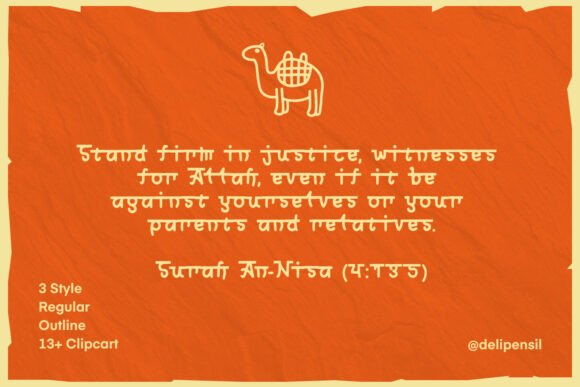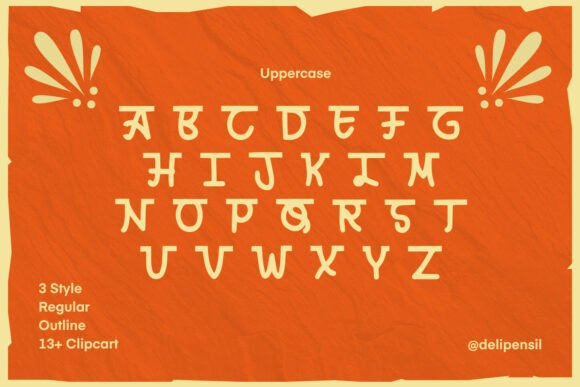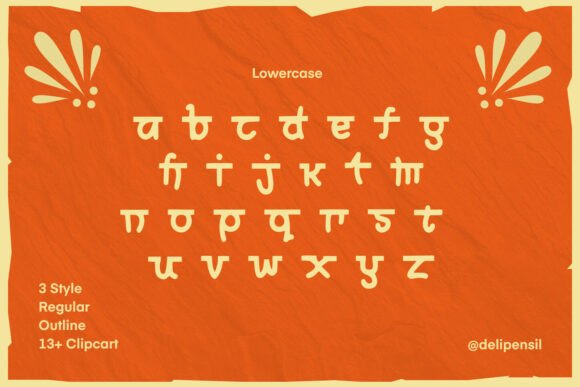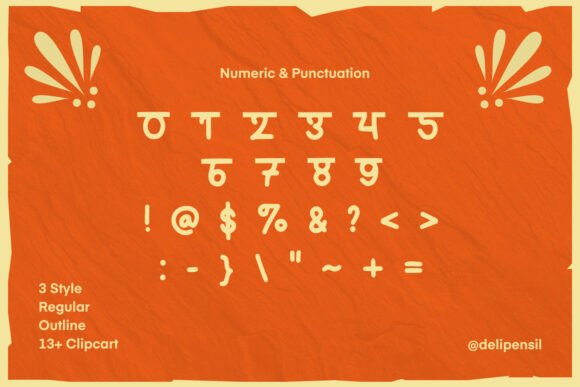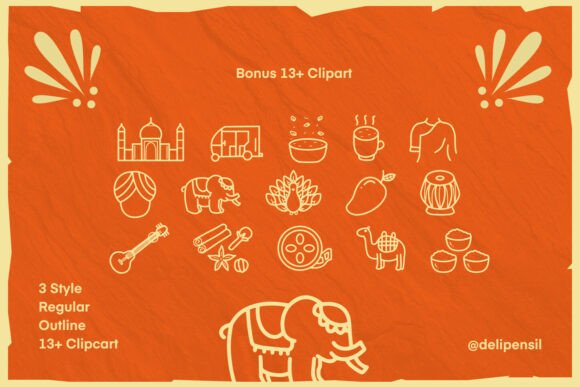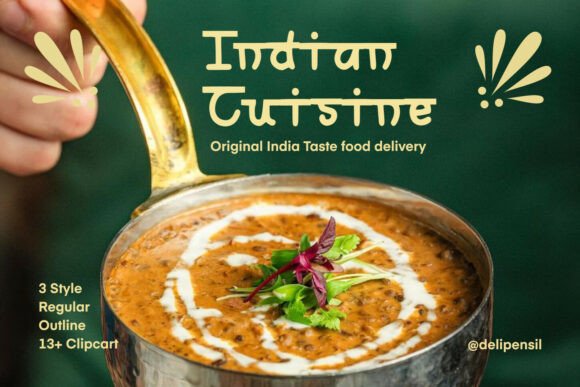
✨ Discover the Delightful Hida Font: A Playful Hindi-Style Font for Creative Designs
Introduction to Hida Font
Bring a touch of culture and creativity to your designs with Hida, a unique Hindi-inspired font! Perfect for branding, posters, invitations, packaging, and social media graphics, Hida gives your work a playful yet authentic vibe. The font comes with two main styles:
- Hida Regular – clean and perfect for headlines
- Hida Outline – a stylish outlined version for modern, trendy looks
Honest Review: What I Love and What to Consider
- ✨ Unique and authentic Hindi-inspired design
- ✅ Easy to read and versatile for various design projects
- 🎉 Fun and playful vibe that’s perfect for creative designs
- 🤔 Limited language support (primarily designed for Hindi and similar languages)
- ⚠️ May require adjustments for use in non-design contexts, such as presentations or documents
The Designer Inspiration Behind Hida Font
The Hida font was crafted with love and care by a designer who wanted to bring a touch of Indian culture to the digital world. Inspired by traditional Hindi typography, the designer aimed to create a font that’s both authentic and fun to use. The result is a unique font that adds a playful yet sophisticated touch to any design.
Q: What languages is the Hida font suitable for?
A: The Hida font is primarily designed for Hindi and similar languages that use the Devanagari script.